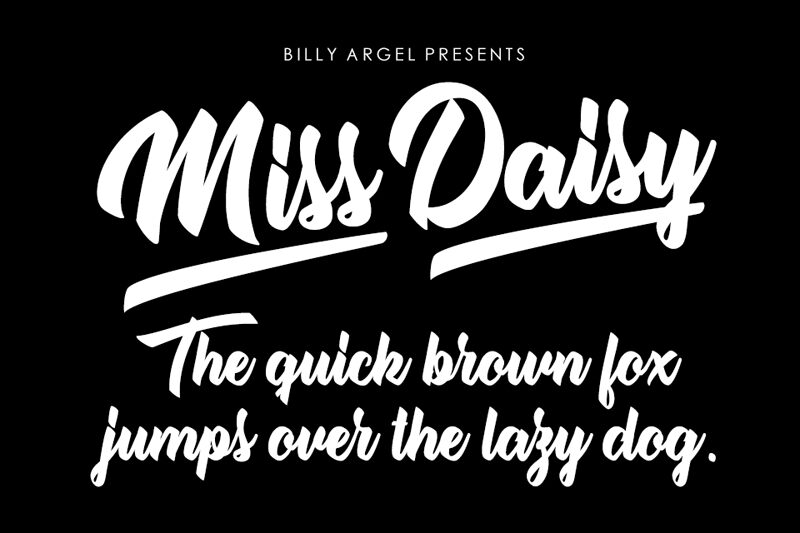
Miss Daisy is a captivating brush-style font designed by the talented Billy Argel. With its fluid, elegant strokes and a touch of playfulness, this font exudes a sense of effortless sophistication. The sweeping, interconnected letterforms create a harmonious and visually striking composition, making it an excellent choice for a variety of design applications, from high-end branding to whimsical event invitations. Miss Daisy seamlessly blends the charm of hand-lettering with the precision of digital typography, allowing designers to infuse their projects with a touch of artistry and refinement.
Designers seeking to elevate their work with a distinctive and memorable font will find "Miss Daisy" to be a versatile and compelling option. Its versatility extends across various mediums, from print materials to digital interfaces, making it a valuable asset in the creative toolkit.